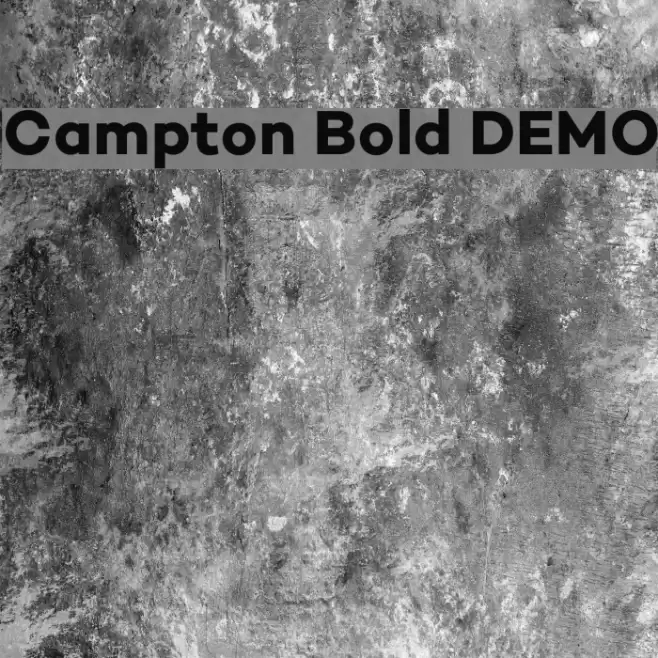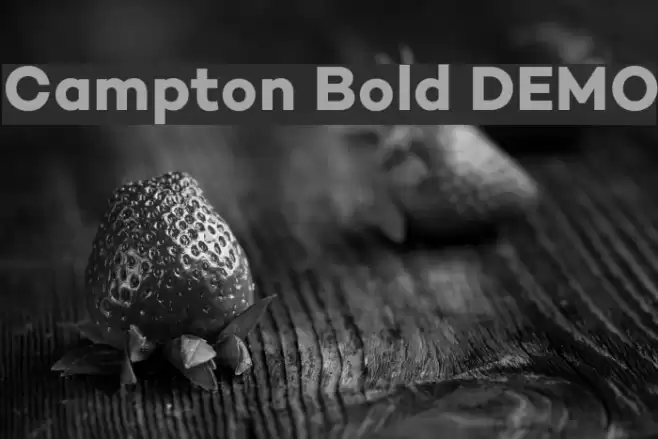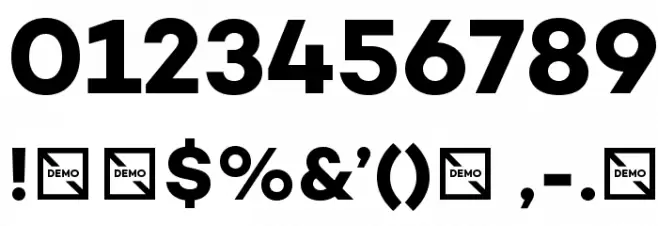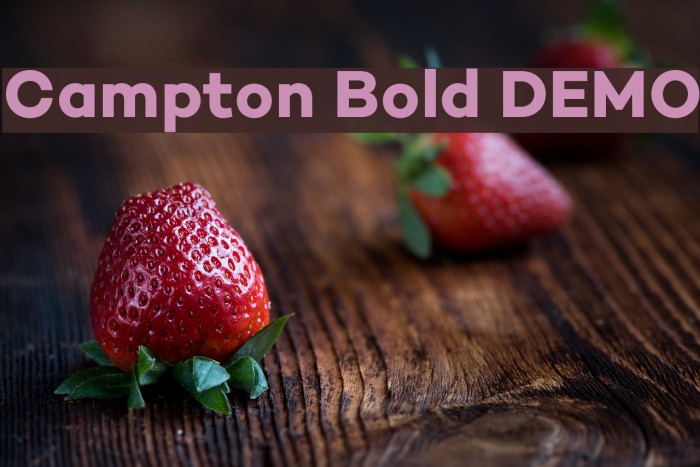
Campton Bold DEMO Font
Campton Bold DEMO Description
This font exhibits a clean and modern sans-serif style with bold, uniform strokes that convey a sense of strength and clarity. The characters are well-proportioned, with consistent line weights that enhance readability. The uppercase letters are robust and commanding, while the lowercase letters maintain a friendly and approachable appearance. The numerals are clear and distinct, making them suitable for various applications. Special characters are included, adding versatility to the font's usage. Overall, this font is designed to make a strong visual impact while maintaining legibility.
A bold, modern sans-serif font with strong, uniform strokes and excellent readability from Uncategorized fonts.